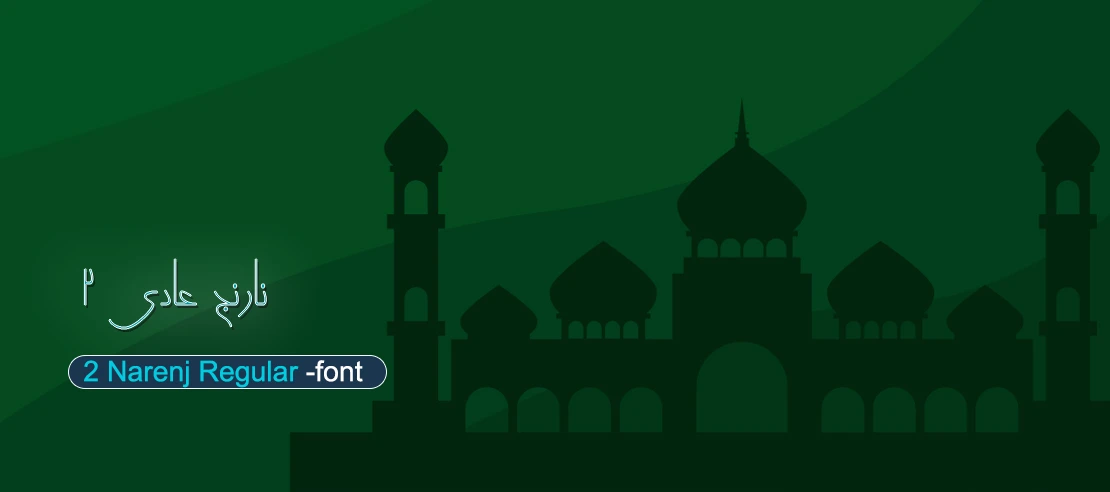
Narenj Regular, a popular Arabic font, exudes elegance and modernity, appealing to professionals in the fields of art, design, and blogging. Its distinct character map sets it apart and serves specific purposes for our users. This font has revolutionized many scenarios, offering a default regular style while remaining completely free. It draws inspiration from various Arabic writing styles and alphabets, shaping its unique diagraph.
2 Narenj Regular